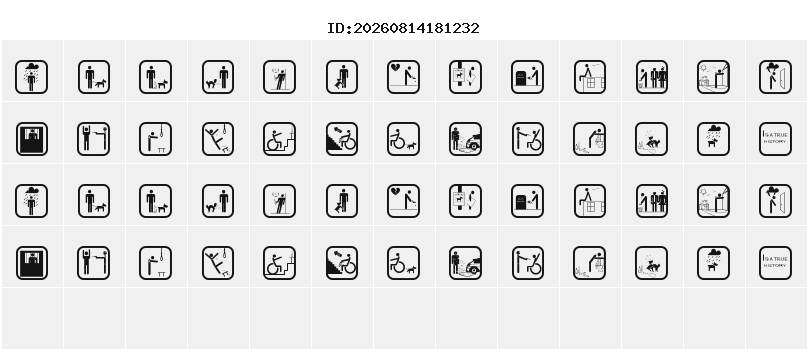
• Font Name: Stickerman bad times
• Designer: kaiserzharkhan
• Description: Un desafió, este dingbats esta basado en la historia de un amigo... ordenen la historia como caricatura de principio a fin.